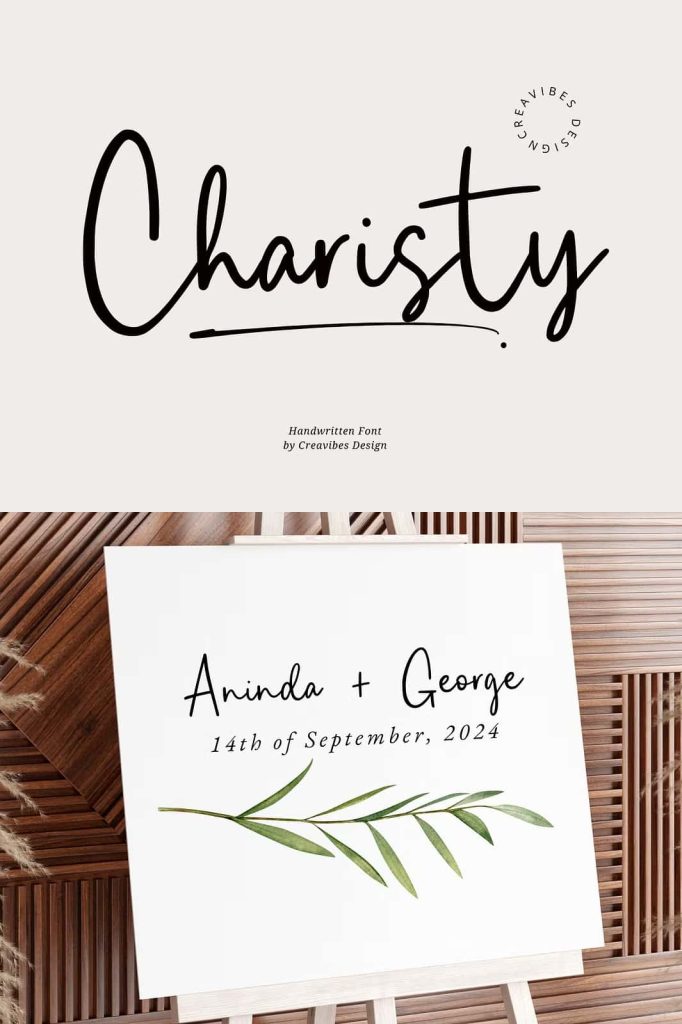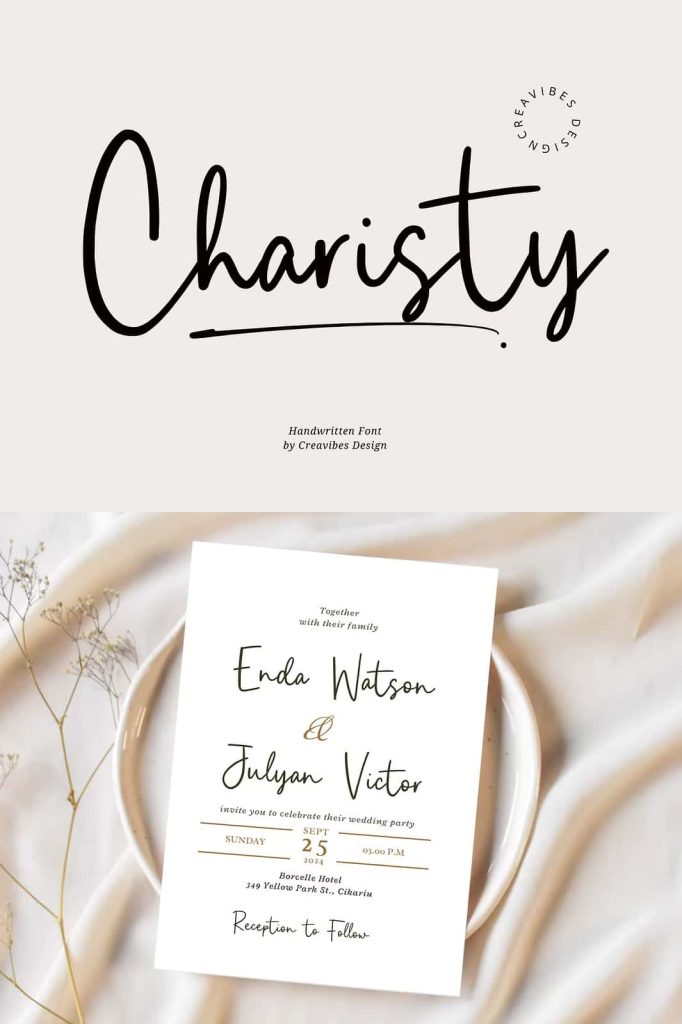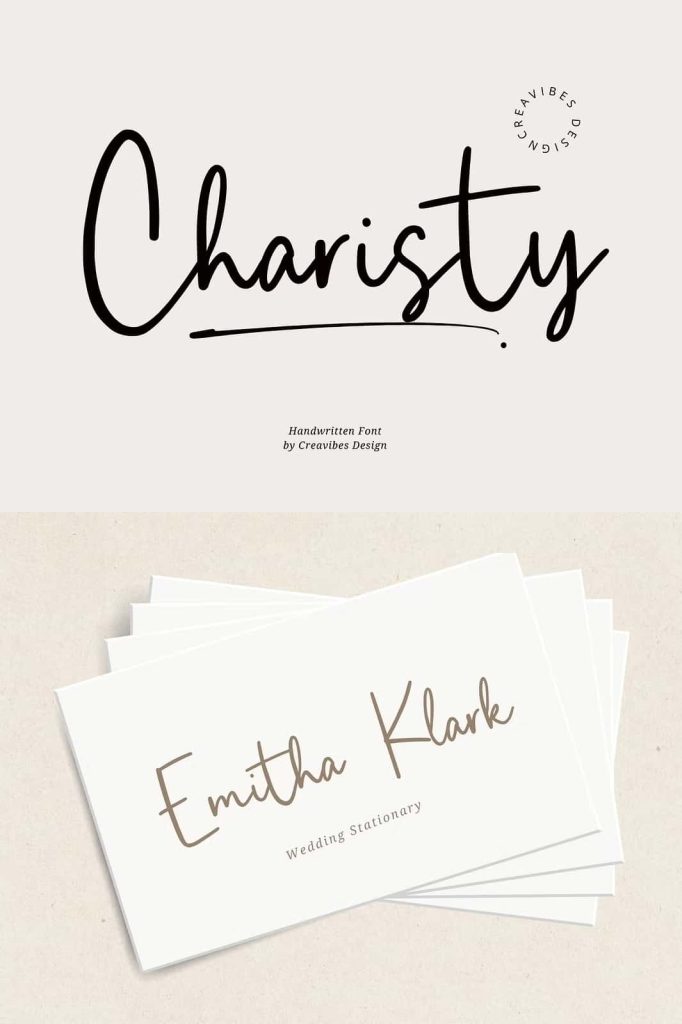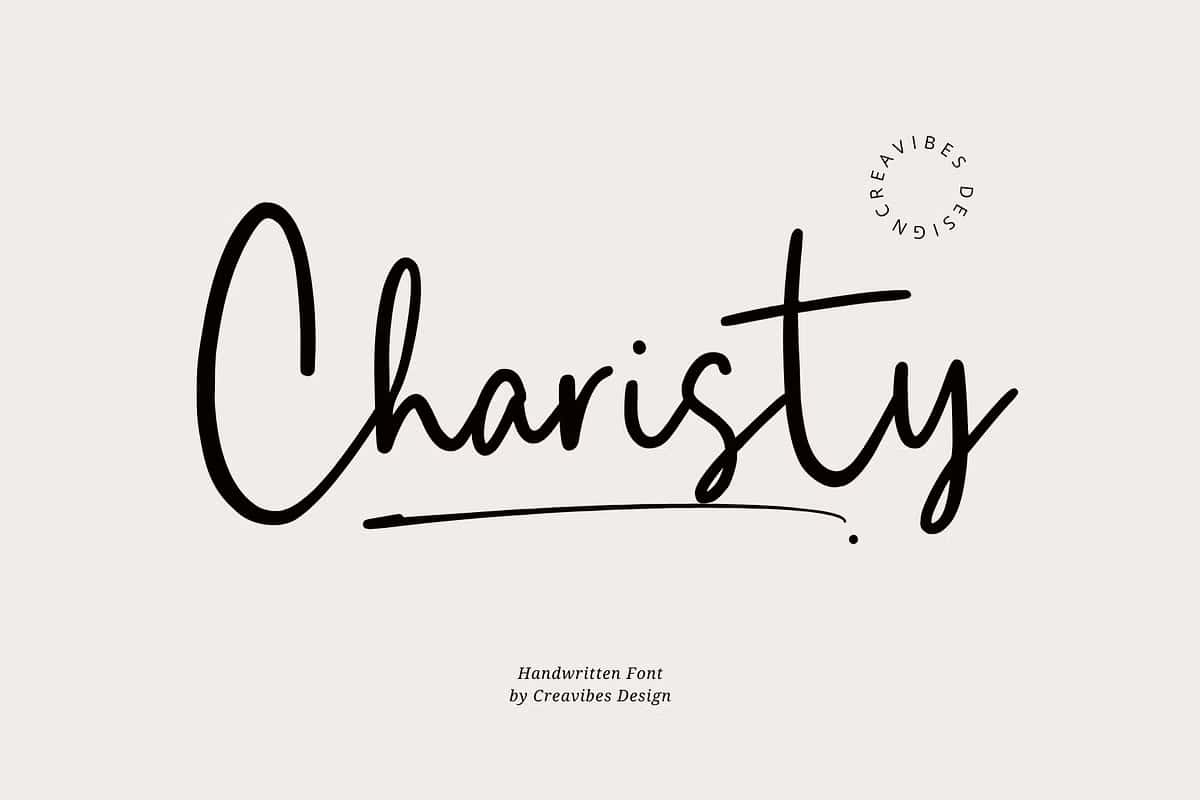
Charisty Handwritten Script Font
Charisty is a beautifully crafted handwritten script font that embodies warmth, authenticity, and personal expression. Designed to resemble real handwriting, this typeface brings softness and human character to any design project. Its natural flow and organic rhythm allow it to stand out while maintaining excellent readability, making it suitable for both digital and printed work. Whether you want to express emotion, personality, or elegance through typography, Charisty offers a style that feels genuine, heartfelt, and expressive.
A Font Built with Authentic Handwritten Personality
What makes Charisty truly captivating is its genuine calligraphic movement. Each letter is drawn with care to maintain a natural pen-to-paper feel, allowing the text to look handwritten rather than mechanical. The subtle curves, varied pressures, and carefully preserved imperfections create a visual texture that feels authentic and deeply personal. This natural variation mimics real script writing, giving every word an emotional and meaningful presence.
Charisty balances softness and sophistication, making it versatile enough for personal messages as well as professional branding. The gentle stroke transitions, emotional rhythm, and graceful letterforms make the font enjoyable to read and visually inviting.
Perfect for Creative Projects That Need a Personal Touch
Charisty has endless creative potential and works beautifully across multiple applications. Because of its warm handwritten feel, the font is ideal for projects where connection, storytelling, and emotion play a central role. Charisty is suitable for:
- Wedding invitations and save-the-date cards
- Greeting cards and personalized messages
- Logo design and branding for boutique businesses
- Journaling, digital planners, and scrapbooking
- Printable quotes, posters, and home décor typography
- Stationery, business cards, and packaging design
- Social media posts, banners, and signature-style graphics
Whether you are designing for romantic themes, lifestyle branding, editorial content, or personal projects, Charisty enhances the overall presentation with grace and sincerity.
Features Designed to Support Beautiful Typography
Charisty includes a full set of uppercase and lowercase letters, punctuation, multilingual support, ligatures, and stylistic alternates. These additional features give designers flexibility to customize text and achieve unique visual expression. The smooth letter connections ensure effortless readability, especially in longer words and continuous script.
The font is optimized for both large display headlines and smaller paragraph text, retaining clarity and beauty at any size. Its scalability makes it a practical and powerful tool for branding, print production, and digital design.
Bring Emotion and Authenticity to Your Designs
Charisty handwriting script font is more than just lettering — it is a reflection of warmth, sincerity, and personal identity. If your goal is to create typography with artistic expression and emotional meaning, Charisty is the perfect solution. It transforms simple text into memorable visual experiences while maintaining elegance, readability, and natural charm.
Infuse your work with personality and handcrafted beauty by choosing Charisty for your next creative project. With its heartfelt flow and expressive structure, Charisty allows every word to feel personal, intentional, and beautifully human.